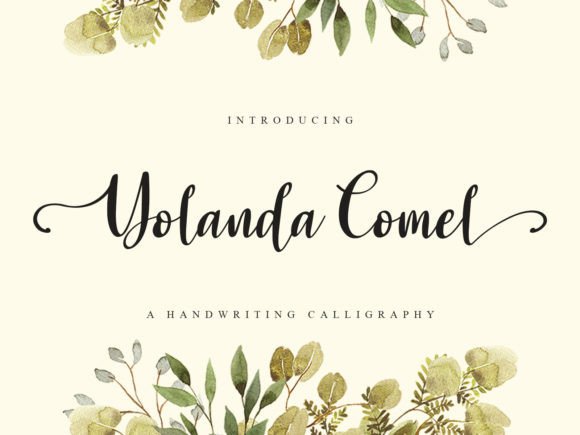
Introducing Yolanda Comel Font, the ultimate script font designed to mesmerize and captivate. Created by myntype, this calligraphic masterpiece is more than just a font - it's a work of art that will elevate your designs to new heights.
With its exquisite swash tails, Yolanda Comel Font exudes elegance and luxury. From wedding invitations that leave a lasting impression to calligraphy logos that define your brand's identity, this font brings a touch of sophistication to any project.
But its versatility doesn't end there. Yolanda Comel Font is the perfect choice for creating stunningly elegant websites that leave visitors breathless. Its graceful curves and enchanting strokes will effortlessly enhance your online presence, making it impossible for users to look away.
Looking for a unique and heartfelt gift? Yolanda Comel Font has got you covered. With its timeless charm and artistic flair, it's the perfect tool to create personalized gifts that will be cherished forever. From custom quotes to heartfelt messages, this font allows you to express your emotions in the most beautiful way possible.
Social media enthusiasts rejoice! Yolanda Comel Font is your secret weapon for crafting captivating posts that demand attention. Stand out from the crowd and leave a lasting impression with stylish and artistic typography that speaks volumes.
Not only that, Yolanda Comel Font is incredibly versatile and can be used to express words over any background, making it a must-have for any design enthusiast. Let your creativity soar as you effortlessly blend this font into your projects, creating a seamless and harmonious visual experience.
In conclusion, Yolanda Comel Font is the epitome of elegance, luxury, and uniqueness. Whether you're a professional designer or an aspiring creative, this font will unlock a world of possibilities. With its mesmerizing swash tails and captivating charm, it's the ultimate font for those seeking to make a statement. So why wait? Download Yolanda Comel Font now and embark on a journey of creative excellence!